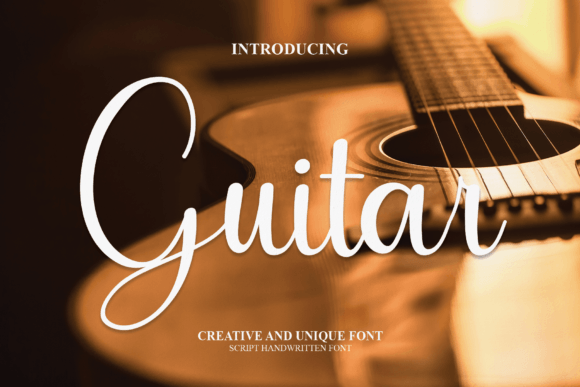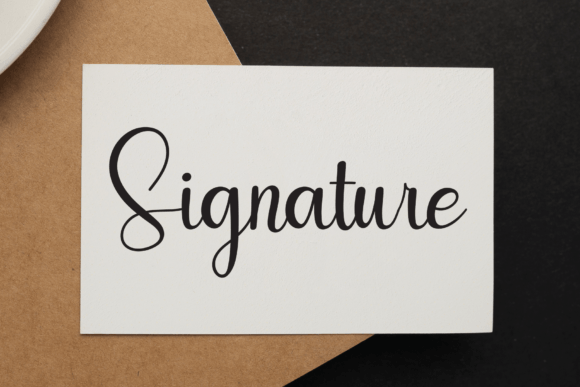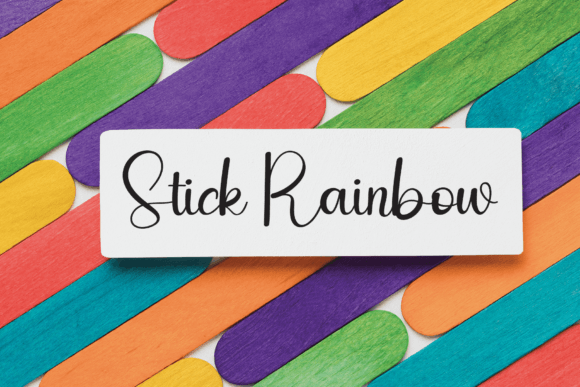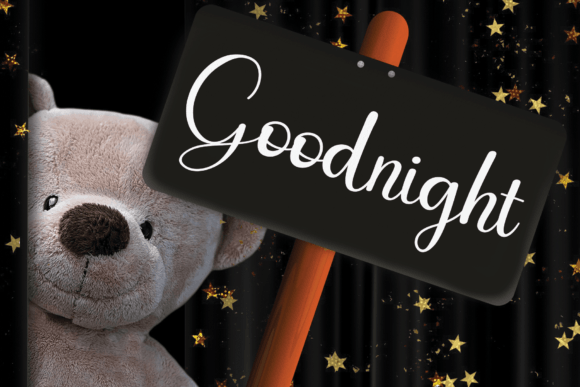
Guitar Font
Presenting a truly one-of-a-kind handwritten font that transcends the ordinary, characterized by an elegant touch, tailor-made for your cherished projects. Prepare to be captivated by its distinctiveness and timeless style, as it emerges as the perfect choice to breathe life into your designs and create nothing short of spectacular visual masterpieces.
What sets this font apart is its unparalleled uniqueness. Every stroke, every curve, and every character is meticulously crafted to offer a fresh and innovative take on the art of typography. It’s not just a font; it’s a design statement, an embodiment of creativity that promises to elevate your projects to new heights.
The handwritten charm of this font adds a personal and authentic dimension to your designs. It goes beyond being a mere set of characters, transforming into an expressive tool that forges a deep connection with your audience. With each letter, it tells a story of elegance and refinement, making it the ideal choice for projects that demand a touch of sophistication.
In a world where trends come and go, this font stands the test of time. Its style is not bound by the transient nature of design fads; instead, it exudes a timeless allure that ensures your creations remain relevant and impactful across eras. It becomes a companion on your creative journey, promising enduring beauty in every application.
Get ready to fall in love with the versatility of this font. It’s not confined to a specific niche; instead, it’s a blank canvas waiting for your creative brushstrokes. Whether it’s branding, invitations, posters, or any design endeavor, this font adapts effortlessly, promising to transform your ideas into visually stunning and spectacular designs.
In summary, this unique handwritten font is more than a typographic tool; it’s an invitation to explore the limitless possibilities of creativity. Its elegance, distinctiveness, and timeless appeal make it an indispensable asset for your favorite projects, turning each design into a showcase of spectacular artistry. Embrace the extraordinary and let this font be the muse for your most spectacular designs.